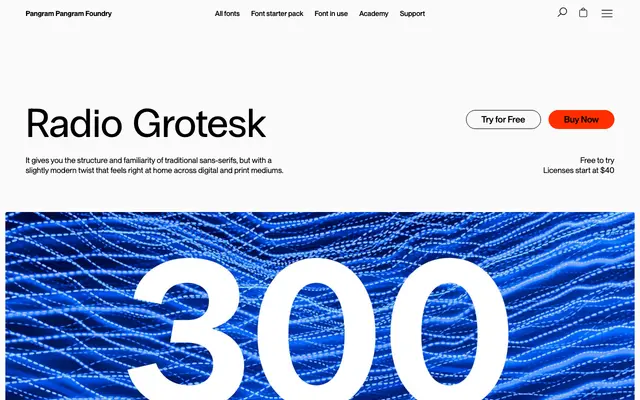
PP Radio Grotesk
Pangram Foundry · Jack Harvatt, Mat Desjardins · 2022
A contemporary grotesque by Jack Harvatt and Mat Desjardins, 16 styles across eight weights with Cyrillic support.
Radio Grotesk is a 16-style contemporary grotesque by Jack Harvatt and Mat Desjardins. Eight weights run from Ultralight to Black with matching italics, and the family includes Cyrillic support. Established uppercase forms sit alongside more sophisticated lowercase, making it a steady choice for editorial and brand systems that want a current grotesque without trend baggage.